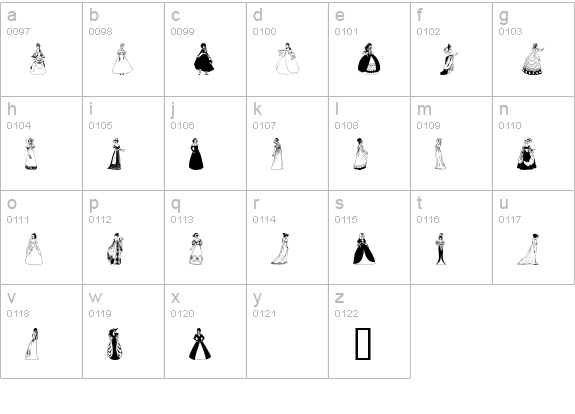
Elegance Font Details
Elegance font embodies sophistication and style with its sleek lines and graceful curves. This elegant typeface exudes a sense of refinement and class, making it perfect for a wide range of design projects. Whether you're creating invitations, logos, or branding materials, Elegance font adds a touch of luxury to any design. Best of all, Elegance font is available for free download at FontsMarket.com. Now you can bring a touch of elegance to your projects without breaking the bank. Download Elegance font today and elevate your designs with its timeless beauty and charm.